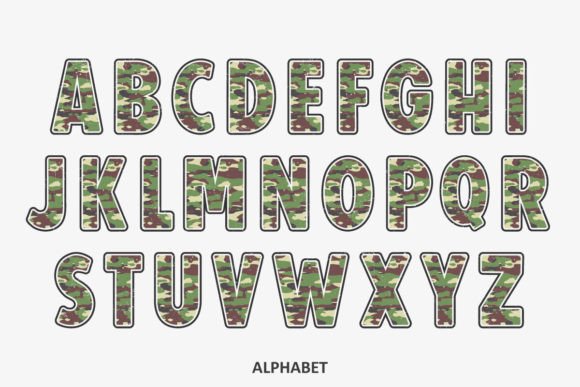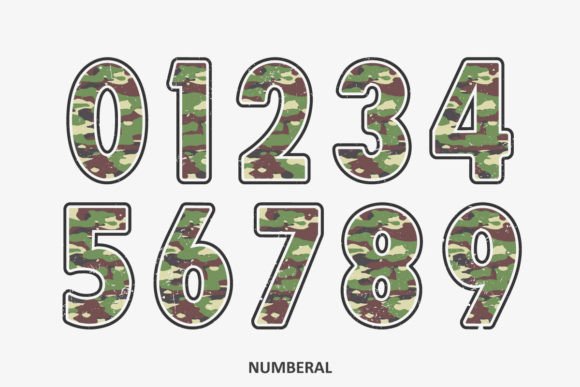
Introducing Camouflage Font: The Ultimate Bold Military Style for Your Designs
Are you tired of using the same old fonts for your designs? Look no further! Camouflage Font is here to revolutionize your creative projects with its bold, military-inspired style. This unique font features a stunning green forest pattern that will make your designs stand out as cool and original.
Camouflage Font is incredibly versatile and can be used for a variety of design projects, including:
- Logotypes and branding
- Headlines and titles
- Corporate identity and brand identity
- Apparel industry designs
- Music and movie titles
- Games and gaming designs
- Magazines and books
- Comics and cartoons
Whether you’re a designer, crafter, or DIY enthusiast, Camouflage Font is the perfect addition to your project. Its bold and eye-catching style is sure to grab attention and leave a lasting impression.
Why Choose Camouflage Font?
So why choose Camouflage Font for your design project? Here are just a few reasons:
- Unique and original style: Camouflage Font features a bold and eye-catching design that will make your project stand out from the crowd.
- Versatile: This font can be used for a wide range of design projects, from logotypes to posters and more.
Tips for Using Camouflage Font
Here are a few tips for using Camouflage Font in your design project:
- Experiment with different colors: While the green forest pattern is stunning, don’t be afraid to experiment with different colors to find the perfect fit for your project.
- Use it boldly: Camouflage Font is designed to make a statement, so don’t be afraid to use it boldly and eye-catchingly.
- Pair it with other fonts: Camouflage Font pairs well with a variety of other fonts, so don’t be afraid to experiment with different combinations.